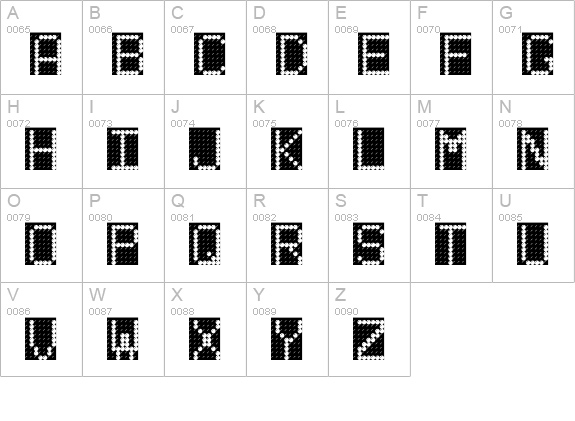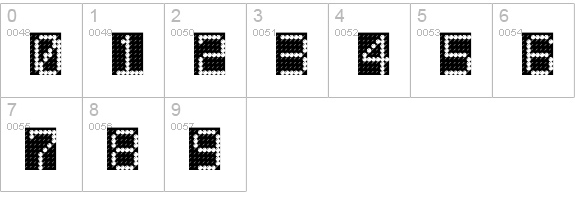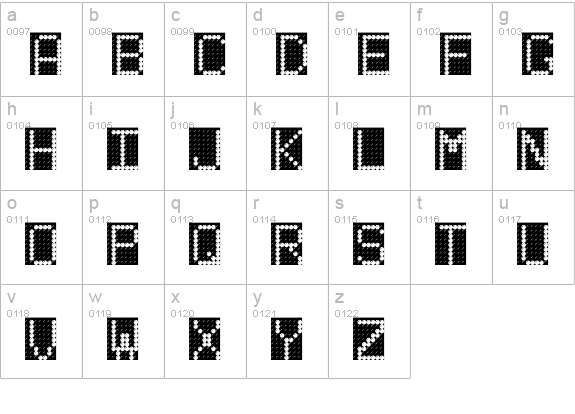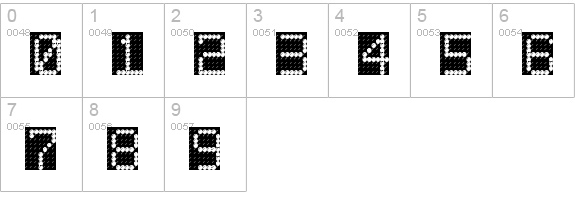
LED BOARD Font Details
Introducing the captivating LED BOARD font, a stunning typeface that will instantly transport you to the vibrant and dynamic world of neon lights. This unique font captures the essence of illuminated signage, with its bold and eye-catching letterforms that mimic the glow of LED displays. The LED BOARD font is a perfect choice for those seeking to add a touch of modernity and excitement to their designs. Whether you're working on a billboard advertisement, a nightclub flyer, or a digital display, this font will effortlessly draw attention and create a memorable impact. With its sleek and futuristic design, LED BOARD font is the epitome of contemporary typography. Each letter is meticulously crafted to resemble the sleek lines and curves of actual LED lights, making it a perfect choice for projects that require a high-tech and cutting-edge aesthetic. What's even better is that the LED BOARD font is available for free download at FontsMarket.com. This means that you can easily access and use this captivating font in your projects without any cost involved. So why wait? Download the LED BOARD font today and let your designs shine brightly with the allure of neon lights.